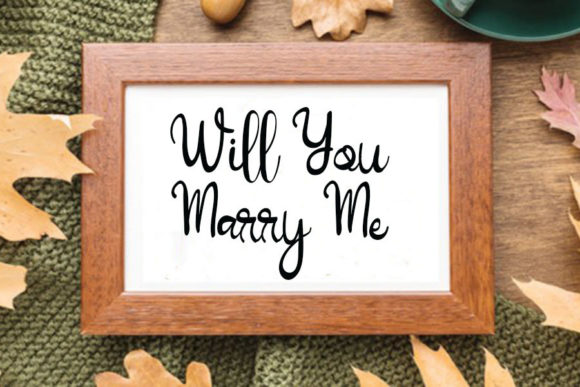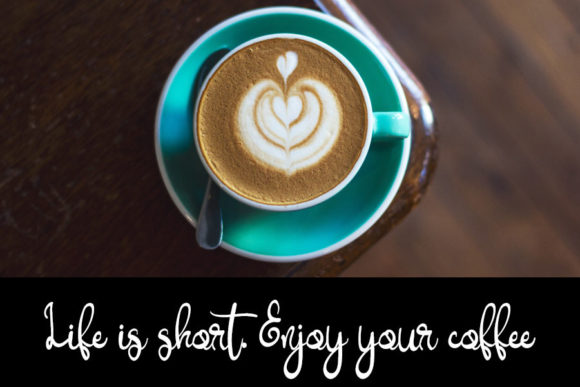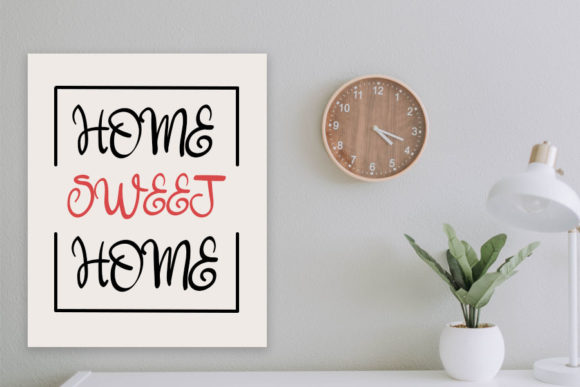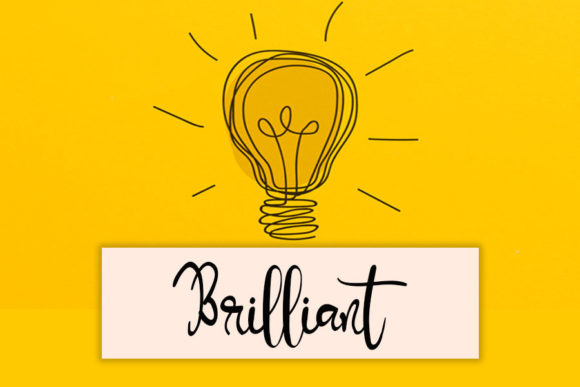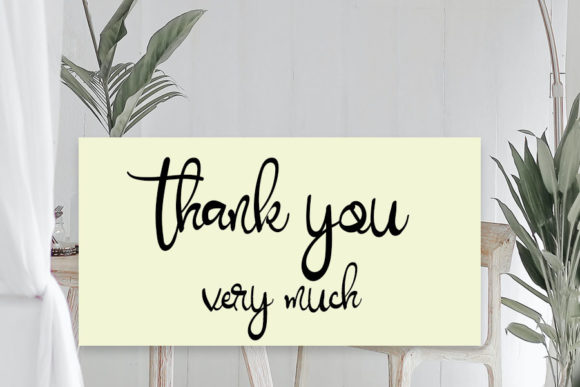
Bumble Bee Font: The Sweetest Addition to Your Design Collection
Are you a designer or crafter looking for a font that exudes charm and elegance? Look no further than the Bumble Bee font! This beautiful, handwritten font is perfect for adding a touch of whimsy and sophistication to any design project. In this article, we’ll dive into the world of Bumble Bee font and explore its features, uses, and benefits.
The Charm of Bumble Bee Font
Bumble Bee font feels equally charming and elegant, making it an excellent choice for a wide range of design projects. Its delicate, cursive script and intricate lettering details evoke a sense of nostalgia and romance. Whether you’re designing wedding invitations, thank you cards, or greeting cards, Bumble Bee font is sure to impress.
Features of Bumble Bee Font
So, what makes Bumble Bee font so special? Here are a few of its standout features:
- Handwritten style: Bumble Bee font has a beautiful, handwritten quality that gives it a personal and unique touch.
- Elegant script: The font’s cursive script is both elegant and refined, making it perfect for formal designs.
- Intricate details: The font’s intricate lettering details add a level of sophistication and whimsy to any design.
- Versatile: Bumble Bee font can be used for a wide range of design projects, from wedding invitations to business cards.
Uses of Bumble Bee Font
Bumble Bee font is incredibly versatile, and can be used for a variety of design projects, including:
- Wedding invitations: Add a touch of romance and elegance to your wedding invitations with Bumble Bee font.
- Thank you cards: Express your gratitude in style with Bumble Bee font.
- Quotes: Add a touch of whimsy and sophistication to your quotes with Bumble Bee font.
- Greeting cards: Create beautiful, one-of-a-kind greeting cards with Bumble Bee font.
- Logos: Use Bumble Bee font to create a unique and memorable logo for your business.
- Business cards: Add a touch of elegance and sophistication to your business cards with Bumble Bee font.
Benefits of Using Bumble Bee Font
So, why should you choose Bumble Bee font for your design projects? Here are a few benefits:
- Unique and memorable: Bumble Bee font is sure to make your designs stand out from the crowd.
- Elegant and sophisticated: Add a touch of elegance and sophistication to your designs with Bumble Bee font.
- Easy to read: Despite its intricate details, Bumble Bee font is easy to read and understand.
- Versatile: Bumble Bee font can be used for a wide range of design projects.
Tips for Using Bumble Bee Font
In conclusion, Bumble Bee font is a beautiful and versatile font that is perfect for designers and crafters looking to add a touch of charm and elegance to their design projects. With its delicate, cursive script and intricate lettering details, Bumble Bee font is sure to impress. Whether you’re designing wedding invitations, thank you cards, or business cards, Bumble Bee font is a great choice. So why not give it a try and see the difference it can make in your designs?